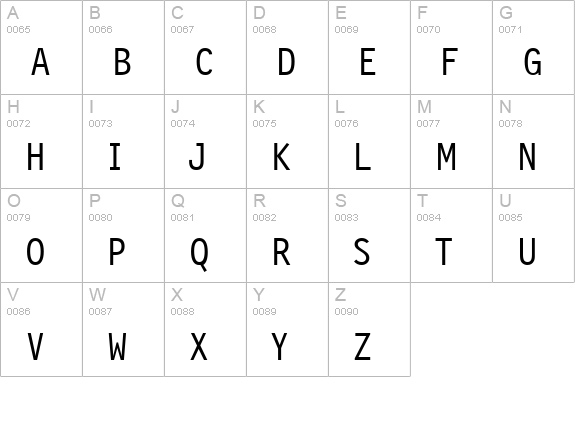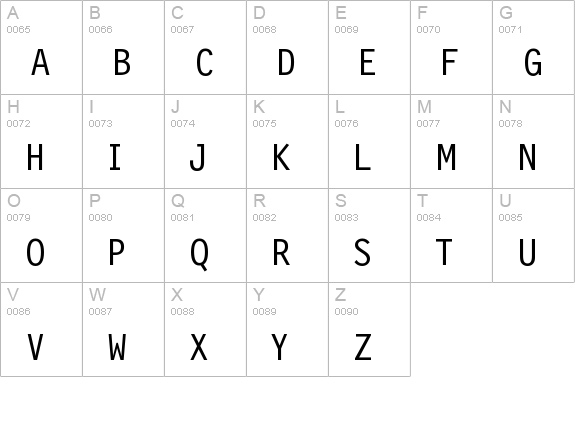
PFLetterGothicThree Medium Font Details
PFLetterGothicThree Medium is a balanced, medium-weight variant in the PFLetterGothicThree typeface family \xE2\x80\x94 well suited to sub-headlines, navigation, and balanced editorial work.
PFLetterGothicThree Medium font is a sleek and modern typeface that exudes a sense of sophistication and style. Its clean lines and bold letterforms make it perfect for a wide range of design projects, from branding to editorial layouts. The medium weight of this font strikes the perfect balance between readability and impact, making it ideal for headlines, subheadings, and body text alike. What sets PFLetterGothicThree Medium font apart is that it is available for free download at FontsMarket.com. This means that you can easily access this high-quality font without any cost, making it a valuable addition to your font library. Whether you're a seasoned designer looking to refresh your typographic arsenal or a newcomer eager to experiment with different styles, PFLetterGothicThree Medium font is a versatile and practical choice that will elevate your design projects to the next level.